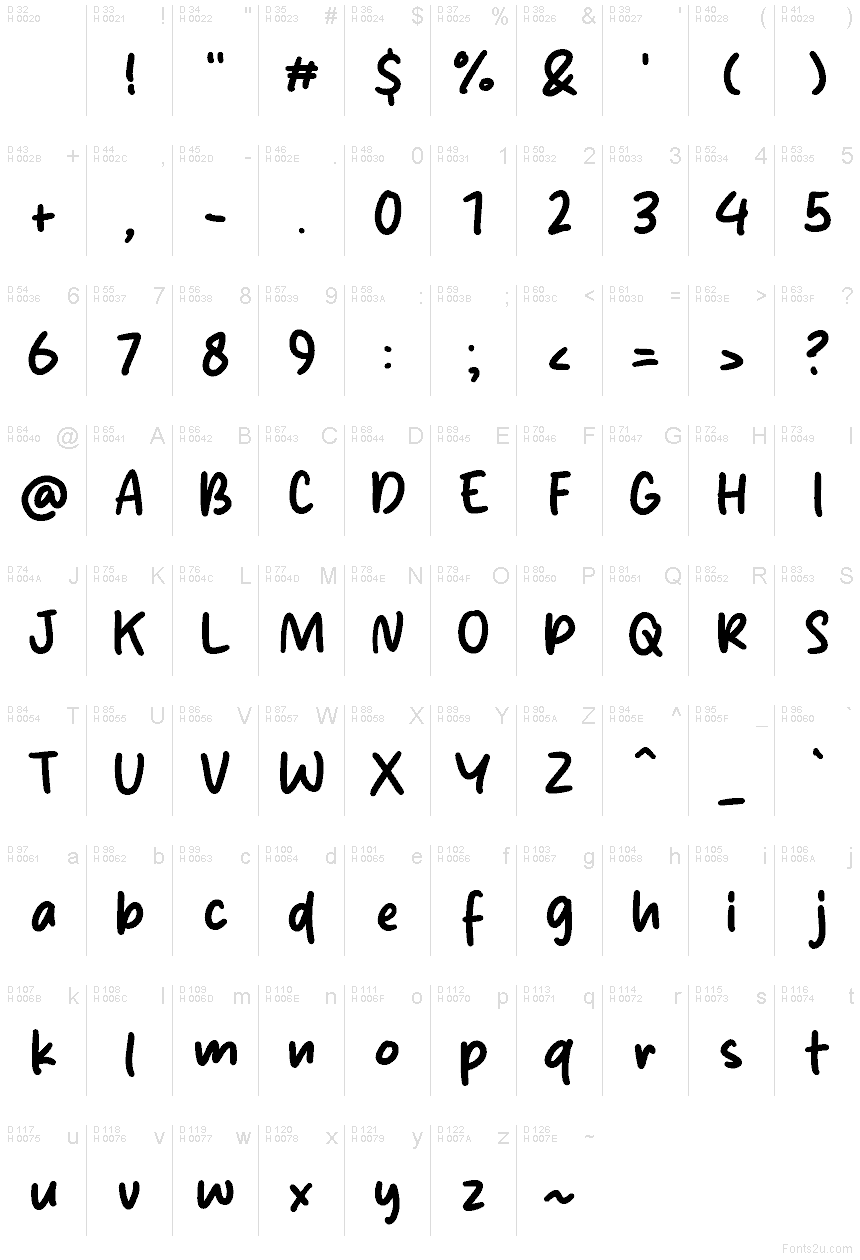
Quirk Inky
Quirk Inky font by MJType is a casually handwritten typeface that captures the fluidity of natural handwriting with its humanistic strokes, varied weight, and slight curves. It has an organic feel and an expressive quality noticeable in its casual aesthetic which transfers into modern usage in branding or creative projects.
This free handwritten font designed for customer usage applications makes it useful for posters, beverage packaging design, merchandise labels, product packages, catalogue covers, greeting cards, magazine or newspaper advertisements among other possibilities.